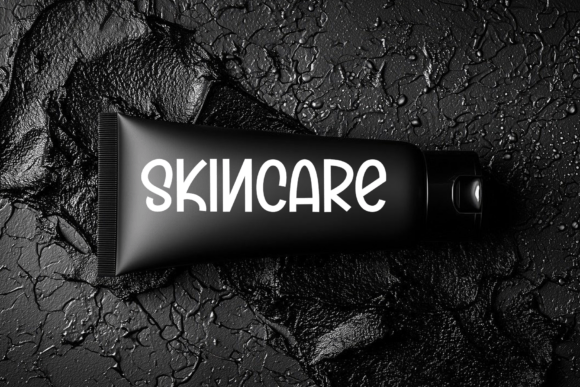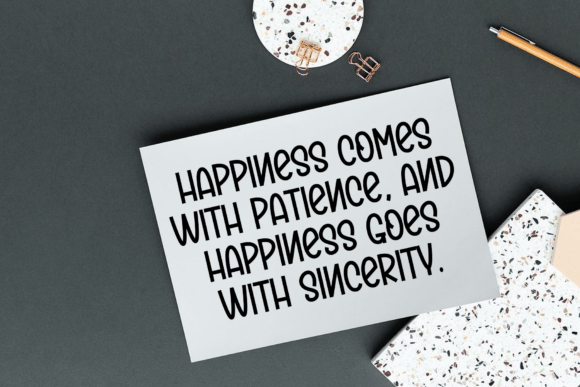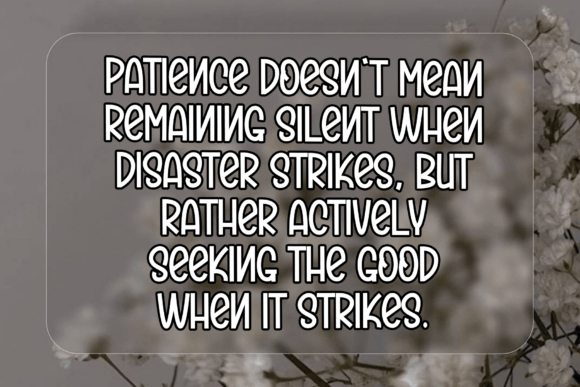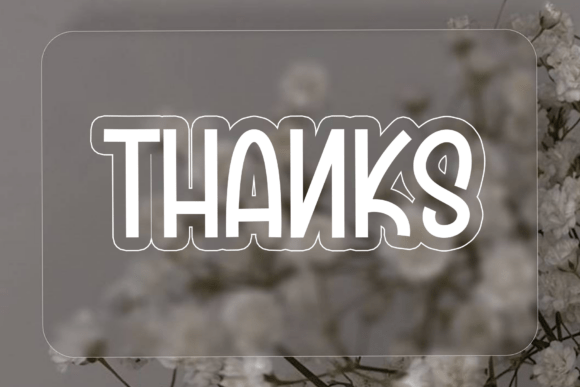
Introduction to Second Choice Font
As designers, we’ve all been there – staring at a blank page, struggling to find the perfect font to convey our creative vision. It’s in these moments that we stumble upon hidden gems, fonts that speak directly to our aesthetic and elevate our design to new heights. For those who’ve been searching for a font that embodies simplicity, friendliness, and a touch of modern whimsy, look no further than the Second Choice Font.
This high-quality font has become a go-to design resource for creatives, offering a polished finish and a warm, inviting touch that’s perfect for branding, headlines, packaging, and digital content. Whether you’re working on a free download or a high-end creative project, the Second Choice Font is sure to deliver clarity and charm in equal measure.
With its clean lines, balanced letterforms, and subtle rounded edges, this versatile font is a valuable addition to any designer’s toolkit, allowing for effortless experimentation and creative expression.
Key Features of Second Choice Font
- High-quality design resource ideal for creative projects, offering a professional look and feel.
- Designed to be highly versatile, making it suitable for a wide range of creative projects, from logos to brochures.
Honest Review: Second Choice Font
I recently stumbled upon the Second Choice Font and was pleasantly surprised by its high quality and versatility. This free download has become a valuable resource for my design projects.
What works well for me is the font’s creative and modern aesthetic, which can add a touch of sophistication to any design. The transparent background makes it easy to layer and manipulate in graphic design software. ✨
Here are some key features that make this font a great addition to my design resource collection:
- Wide range of font styles and weights
- Perfect for use in digital and print projects
- Easy to read and scalable
However, there are some limitations to consider: ⚠️
- May not be suitable for formal or professional designs
- Some characters may not render well in certain font sizes
Overall, I’m impressed with the Second Choice Font and would highly recommend it for creative projects. Its high quality and flexibility make it a great resource for designers of all levels.
Tips for Getting the Most Out of the Second Choice Font
Here are a few tips for getting the most out of the Second Choice Font:
- Use the font on a transparent background to create a subtle design effect.
- Pair the Second Choice Font with other high-quality design resources to create a cohesive design.
- Experiment with different font sizes and colors to create a unique design.
The Second Choice Font is commonly used in:
- Graphic design projects.
- Web design projects.
- Print design projects.
Alternatives to Second Choice Font